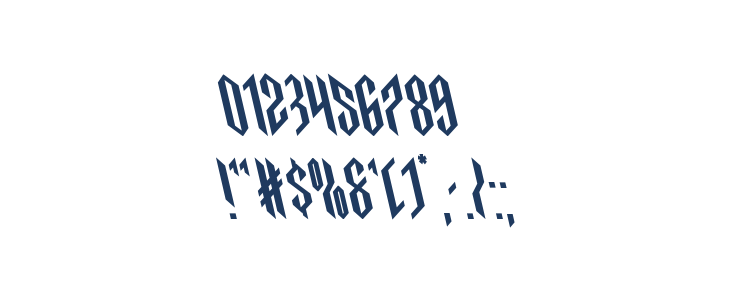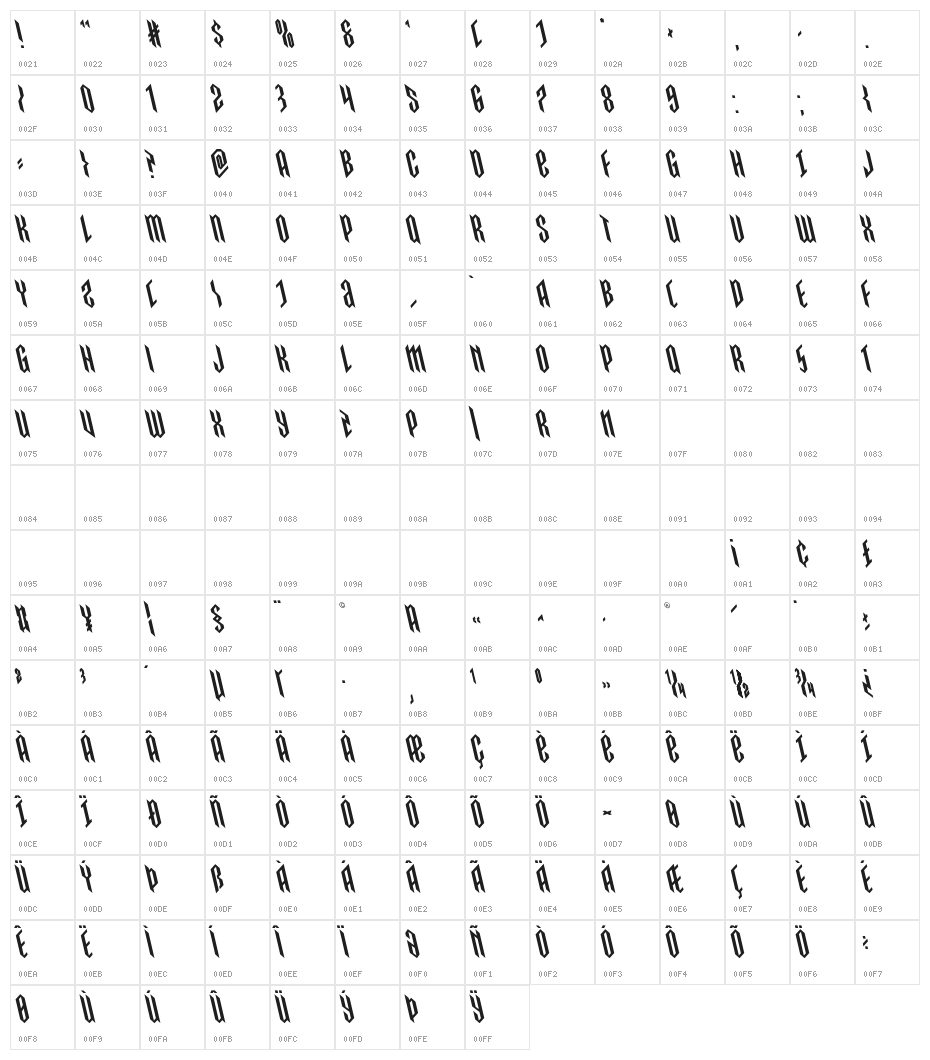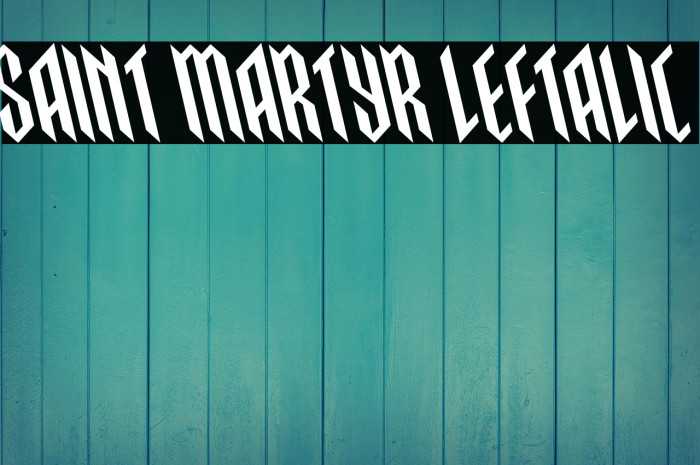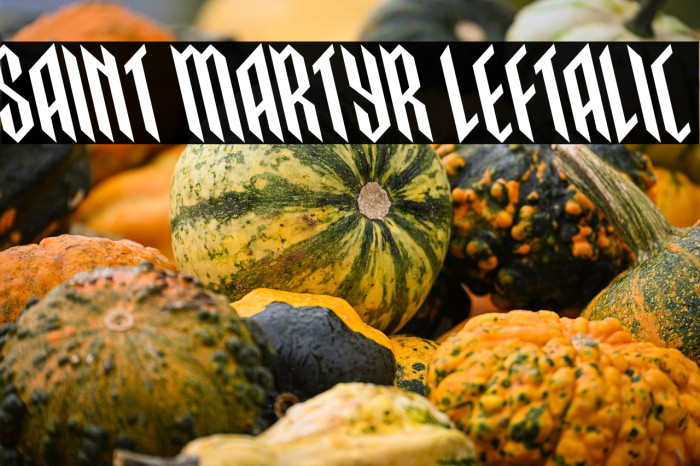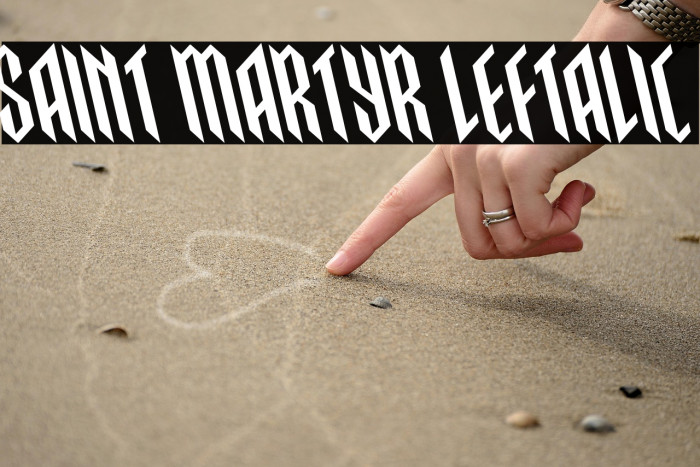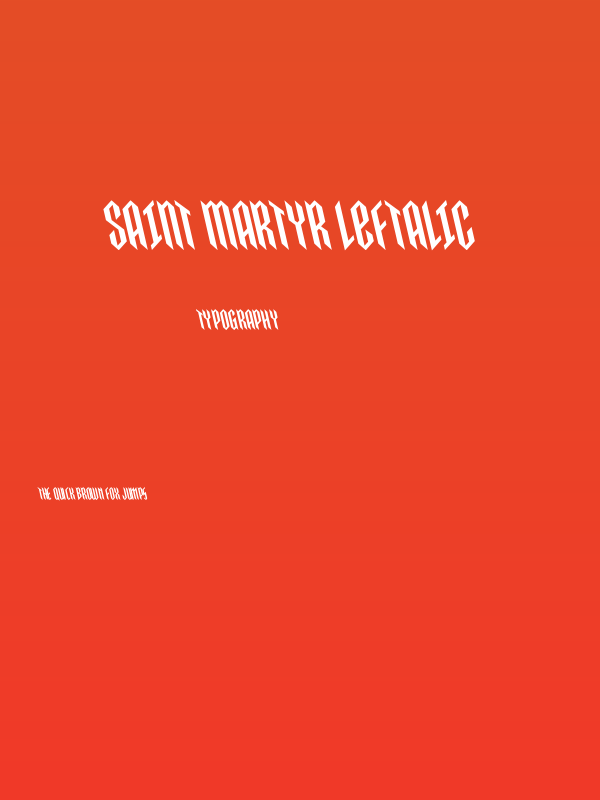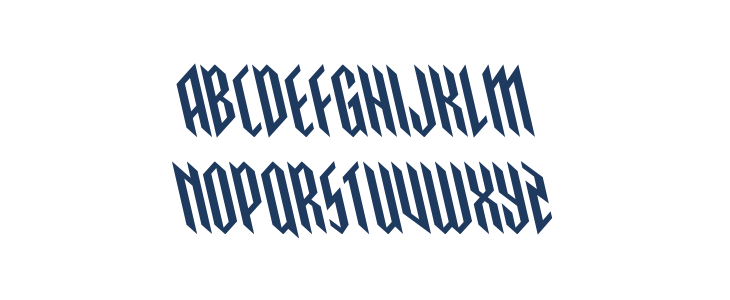
Saint Martyr Leftalic Font
Saint Martyr Leftalic Description
This font features a bold and angular design with a distinct slant to the left, giving it a dynamic and edgy appearance. The characters are sharply defined with thick strokes, creating a high contrast between the bold lines and the negative space. The uppercase and lowercase letters maintain a consistent style, with the angularity adding a sense of movement and urgency. Numbers and special characters follow the same design principles, ensuring uniformity across all glyphs. The overall aesthetic is modern and somewhat aggressive, making it suitable for attention-grabbing designs.